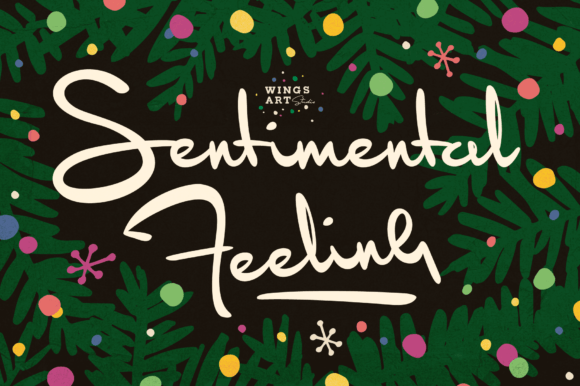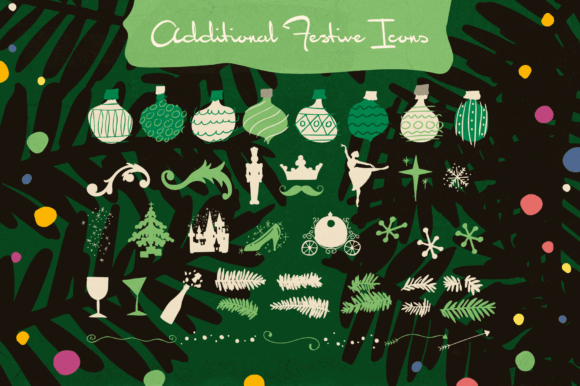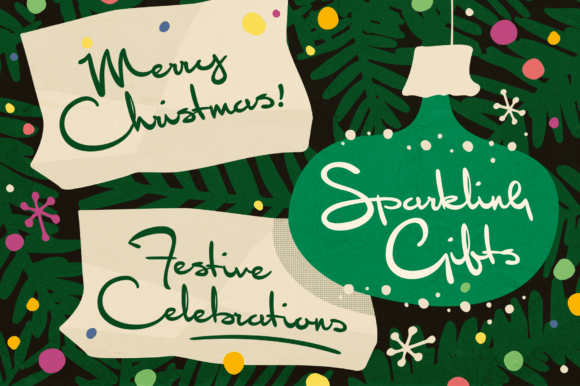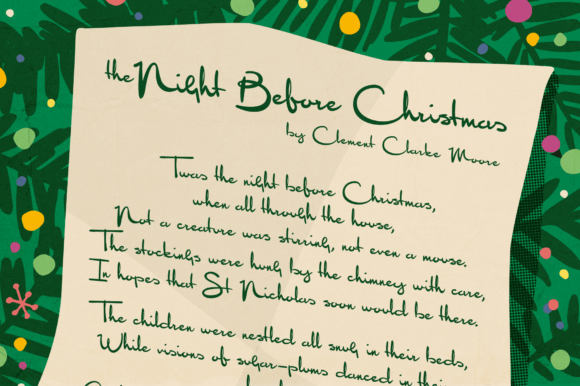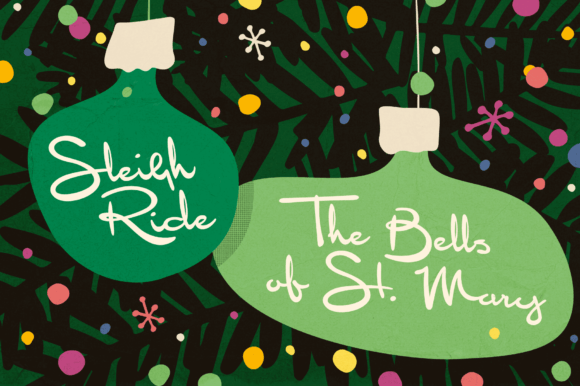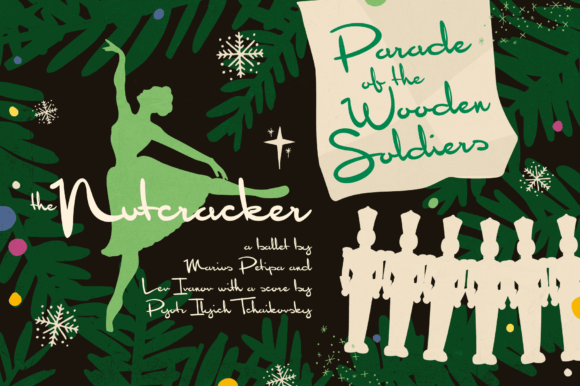
About Sentimental Feeling Font
Introducing Sentimental Feeling, a script font crafted to capture the festive magic of Christmas with a retro design inspired by 1950s magazine editorials, classic movies, and real hand-written signatures. This font aims to bring the warmth and nostalgia of Christmases past, featuring a smooth brush-like flow and subtle human imperfections for an authentic and charming touch.
The appeal of Sentimental Feeling lies in its ability to evoke the spirit of Christmas through design elements reminiscent of 1950s aesthetics. The retro-inspired design brings a sense of classic elegance and timeless charm, making it suitable for a variety of festive applications. Imagine Sentimental Feeling gracing holiday cards, where it adds a touch of nostalgia and warmth to your season’s greetings. Picture it on invitations for Christmas Eve gatherings or New Year’s parties, setting the tone for festive and joyful celebrations.
The font’s smooth brush-like flow contributes to its inviting and friendly appearance, making it equally suitable for sharing heartwarming Christmas stories or adding a touch of retro sophistication to your festive decorations. Sentimental Feeling aims to create a connection with the traditions and sentiments associated with the holiday season.
In conclusion, Sentimental Feeling is not just a font; it’s a festive design asset that transports you to the heartwarming and joyful atmosphere of Christmas. Download it today and experience how it infuses your designs with the retro magic of the holiday season. Make Sentimental Feeling a cherished addition to your font collection, and let it be the key to unlocking a world of Christmas cheer and timeless elegance in your designs!